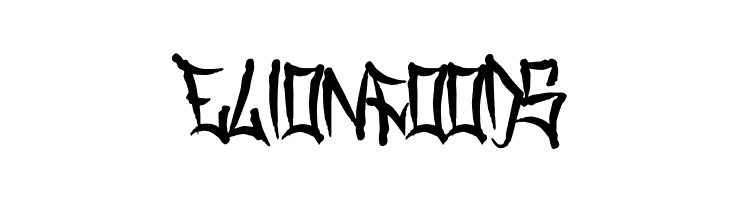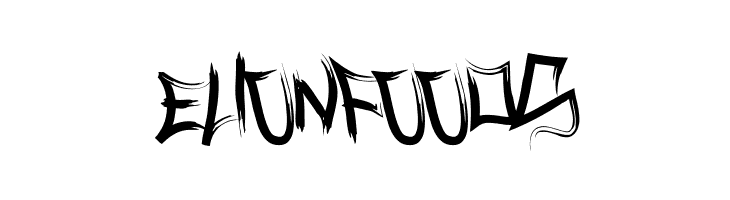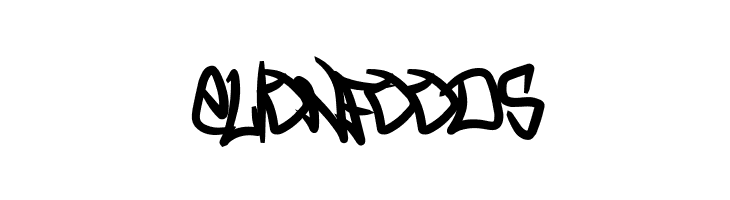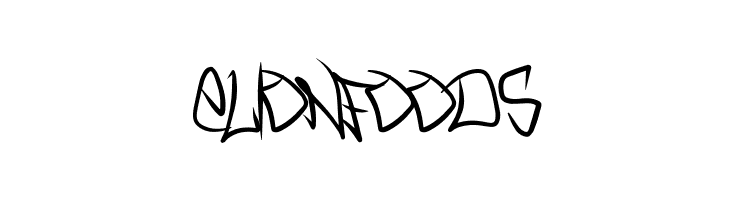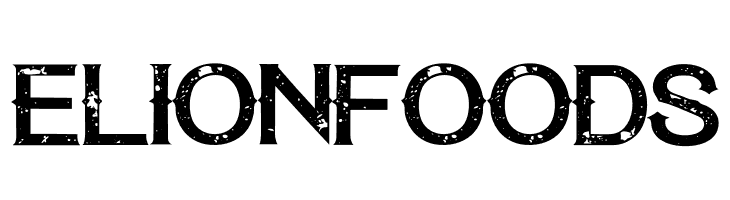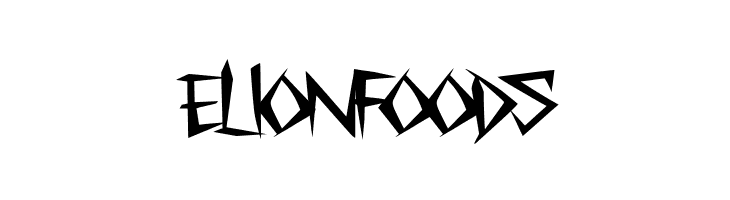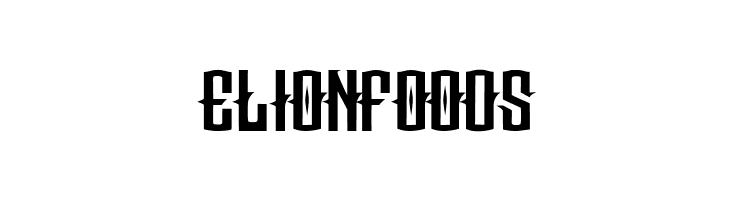
A bold, edgy font with a hand-painted, rebellious style.
A bold, distressed font with a futuristic and edgy design.
A bold, jagged, brush-like font with a raw and intense style.
A bold, impactful font with strong, uniform characters.
A bold, graffiti-style font with angular, dynamic letterforms.
A bold, distressed font with jagged edges and a chaotic, hand-drawn appearance.
A bold, high-contrast font with sharp angles and curved elements for dramatic visual impact.
A bold, distressed font with a rugged, grunge texture.
A chilling, jagged font ideal for horror-themed designs.
A distressed serif font with a vintage, textured appearance.
A playful, handwritten font with bold, rounded strokes and a casual feel.
A bold, graffiti-inspired font with sharp, angular lines and dynamic flow.
A bold, edgy font with jagged, distressed strokes for a rebellious look.
A dynamic, handwritten-style font with expressive strokes and a casual, artistic flair.
A modern, rounded font with consistent stroke thickness and a playful aesthetic.
A decorative font with geometric lines and curves, offering a futuristic and artistic style.
A rugged, distressed slab serif font with a vintage, Wild West feel.
A bold, modern sans-serif font with strong, uniform strokes and tight spacing.
A bold, distressed font with a modern, edgy style.
A bold, grunge-style font with jagged, distressed characters.
A bold, graffiti-inspired font with sharp, angular strokes.
An edgy, graffiti-inspired font with sharp, angular lines and dramatic strokes.
A bold, hand-drawn font with a textured, artistic style.
A bold, geometric sans-serif font with a modern and clean aesthetic.
A bold, distressed font with a vintage Western aesthetic.
A bold, distressed font with a rugged, vintage appearance.
A distressed, grunge-style serif font with a rugged, vintage appearance.
A whimsical, hand-drawn font with elongated, irregular strokes.
A bold, distressed font with a modern, grunge style.
A bold, italicized font with a distressed, edgy appearance.
A bold, distressed font with a grungy, textured appearance.
A bold, gothic blackletter font with intricate detailing and a medieval aesthetic.